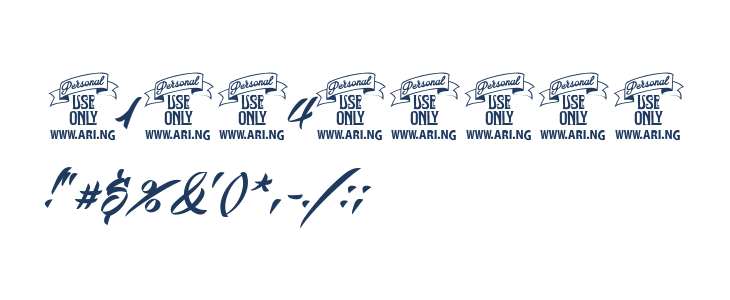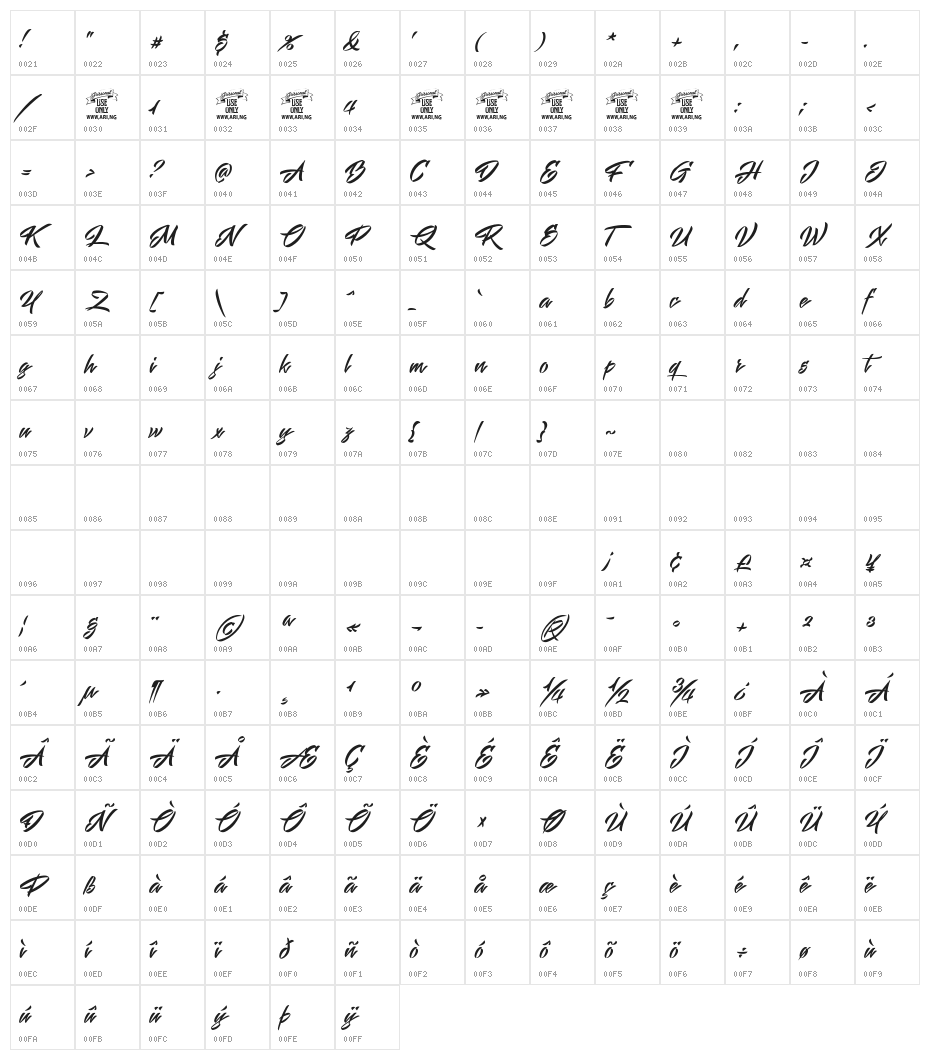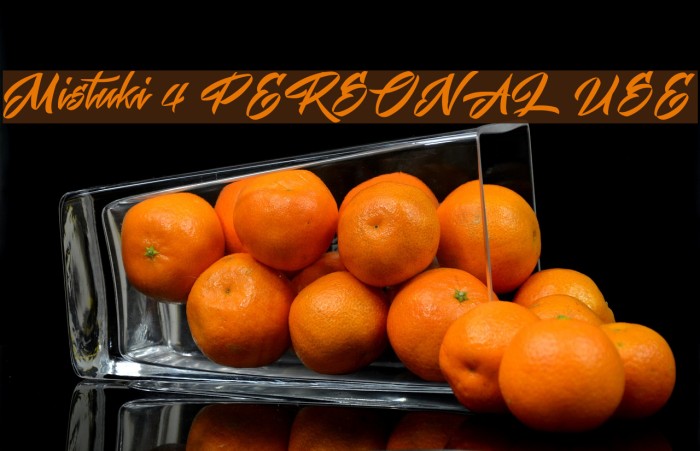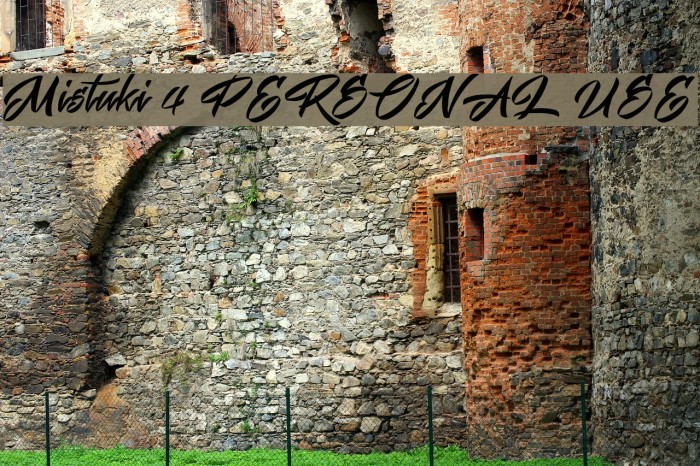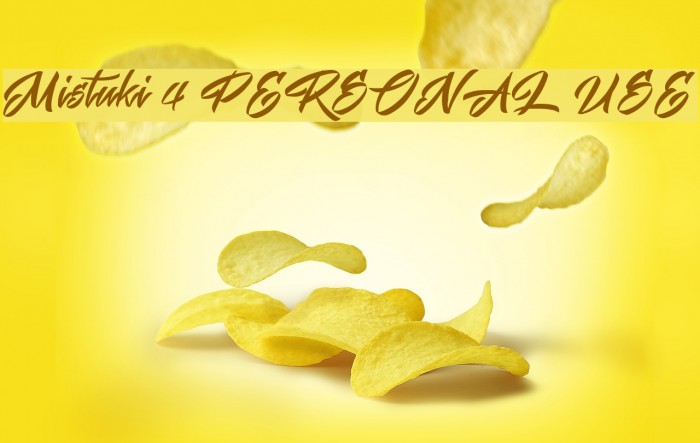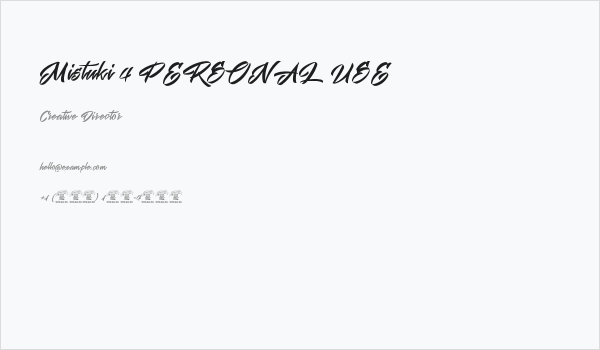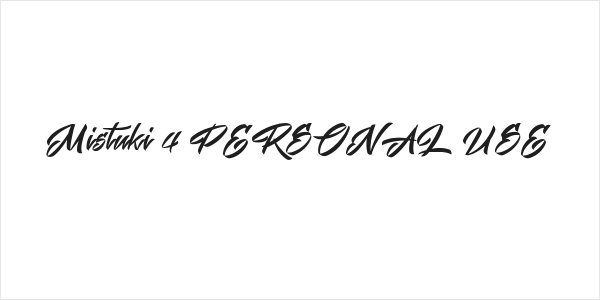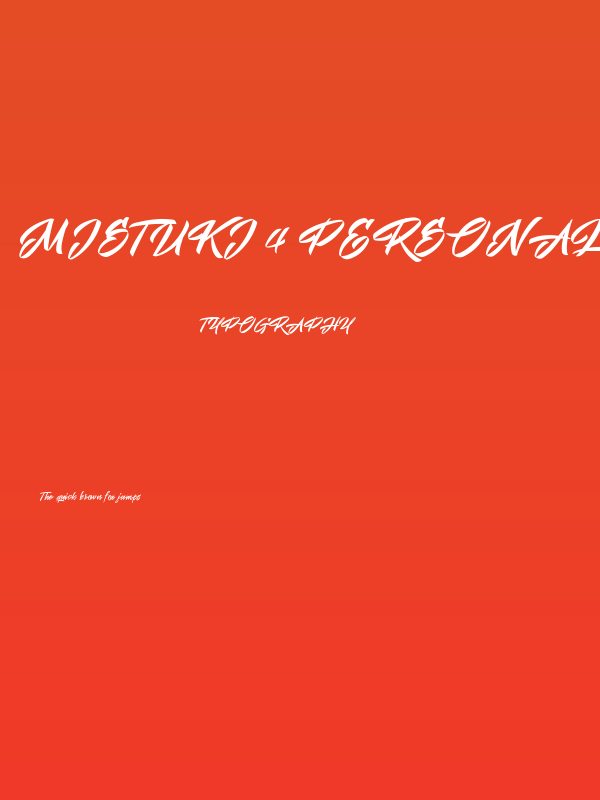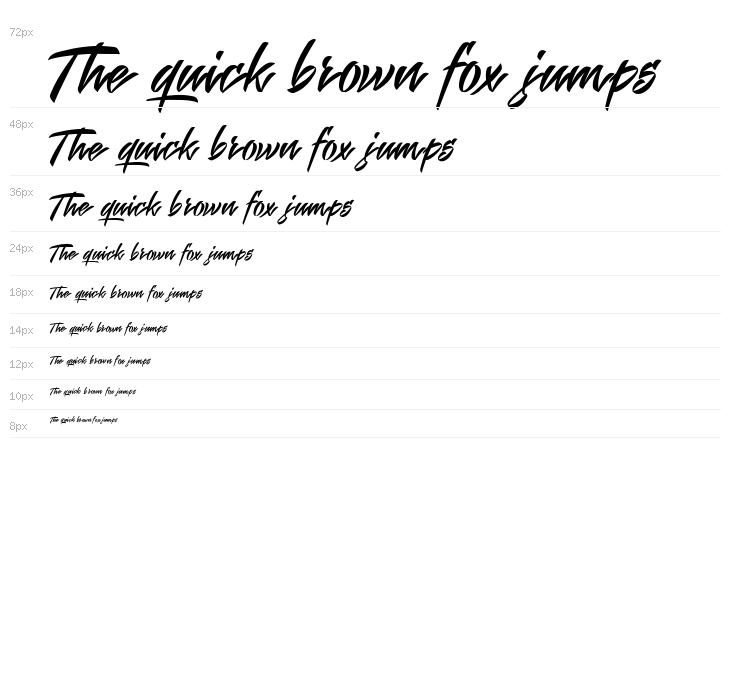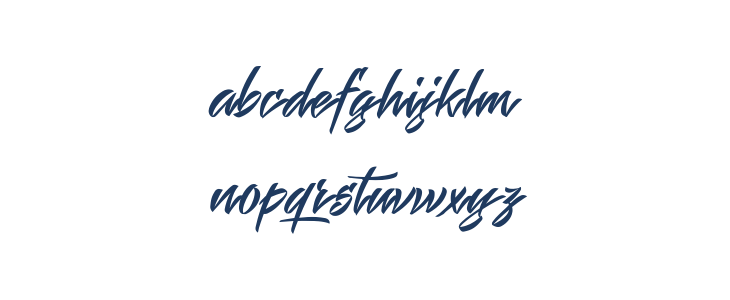
Mistuki 4 PERSONAL USE Font
Mistuki 4 PERSONAL USE Description
This font features a dynamic and flowing script style, characterized by its elegant and cursive letterforms. The uppercase letters exhibit a bold and confident stroke, while the lowercase letters maintain a smooth and connected appearance. The font's overall design is reminiscent of traditional calligraphy, with a modern twist that adds a touch of sophistication. The special characters are crafted with the same attention to detail, ensuring consistency across all glyphs. This font is ideal for projects that require a personal and artistic touch, such as invitations, branding, or decorative elements.